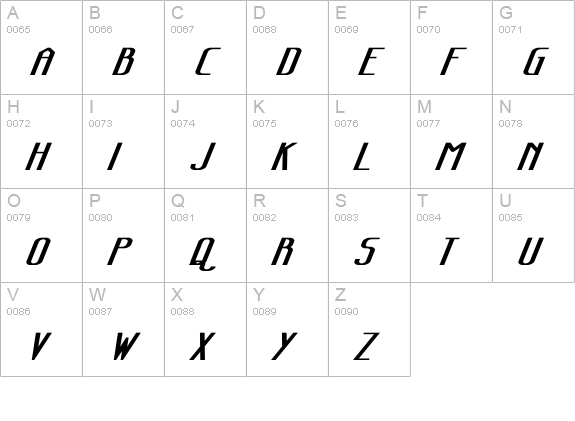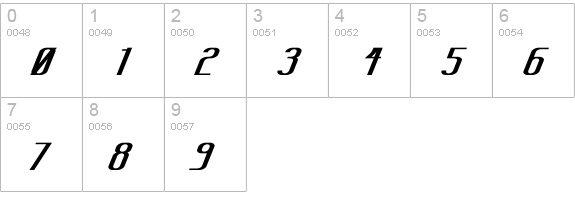
Sanity Wide Bold Italic is a strong, high-contrast, extended-width, italic variant in the Sanity typeface family \xE2\x80\x94 well suited to headlines, attention-grabbing titles, and strong calls-to-action.
Introducing the captivating and versatile Sanity Wide Bold Italic font, a true masterpiece in the world of typography. With its bold and italic characteristics, this font exudes confidence and elegance, making it perfect for creating eye-catching titles, headings, or logos. Sanity Wide Bold Italic font combines the perfect balance between modernity and sophistication, offering a unique touch to any design project. Its wide letterforms create a sense of stability and professionalism, while the bold weight adds a touch of strength and impact. Whether you're designing a sleek corporate presentation, a contemporary website, or a cutting-edge branding project, Sanity Wide Bold Italic font is your ideal companion. Its versatility allows it to adapt flawlessly to various design styles, ensuring your message is conveyed with utmost clarity and distinction. But what makes Sanity Wide Bold Italic font even more appealing is that it is freely available to download at FontsMarket.com. That's right, you can now enhance your designs with this remarkable font without any cost or hassle. FontsMarket.com provides a convenient platform for designers and enthusiasts to access an extensive collection of high-quality fonts, and Sanity Wide Bold Italic font is just one of the many gems waiting to be discovered. So why wait? Elevate your design projects to new heights with the striking Sanity Wide Bold Italic font. Download it for free at FontsMarket.com and unlock endless possibilities for your creative endeavors. Let this font be the catalyst that takes your designs from ordinary to extraordinary.